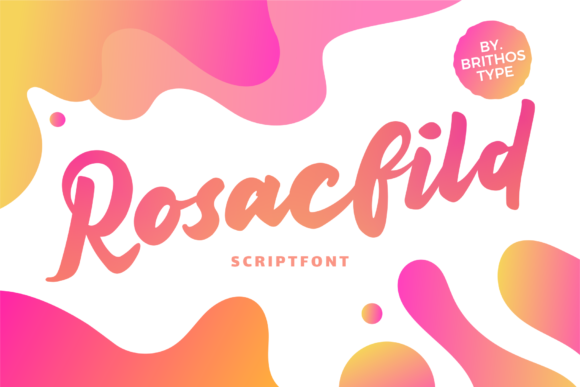
In a world brimming with monotonous and mundane fonts, we present you with Rosacfild - a typographic gem that exudes elegance, charm, and timeless beauty. This bold script font isn't just a collection of letters; it's an artistic masterpiece, meticulously crafted to elevate your designs and capture the hearts of your audience.
With its captivating curves and striking lines, Rosacfild demands attention, making it the perfect choice for headlines, logos, and branding. Its versatility extends to social media posts, where it will transform your quotes and messages into captivating works of art. Imagine your Instagram feed adorned with Rosacfild's enchanting presence, attracting likes and comments from all who lay their eyes upon it.
Rosacfild's allure extends beyond the digital realm. Envision your business cards, t-shirts, and invitations adorned with this stunning font. The intricate details and graceful strokes of Rosacfild will leave a lasting impression on your clients and guests, establishing your brand as one of sophistication and creativity.
But Rosacfild's true magic lies in its ability to transform ordinary wedding invitations into extraordinary keepsakes. The flowing lines and romantic overtones of this font will add a touch of elegance and charm to your special day. Your guests will be captivated by the beauty of Rosacfild, cherishing their invitations as tangible reminders of your love and commitment.
Rosacfild is more than just a font; it's an experience. It's a journey through the realms of creativity, where imagination knows no bounds and beauty reigns supreme. Embrace the artistry of Rosacfild and watch as your designs blossom into works of wonder. Indulge in the splendor of this font, and let your creativity soar to new heights.